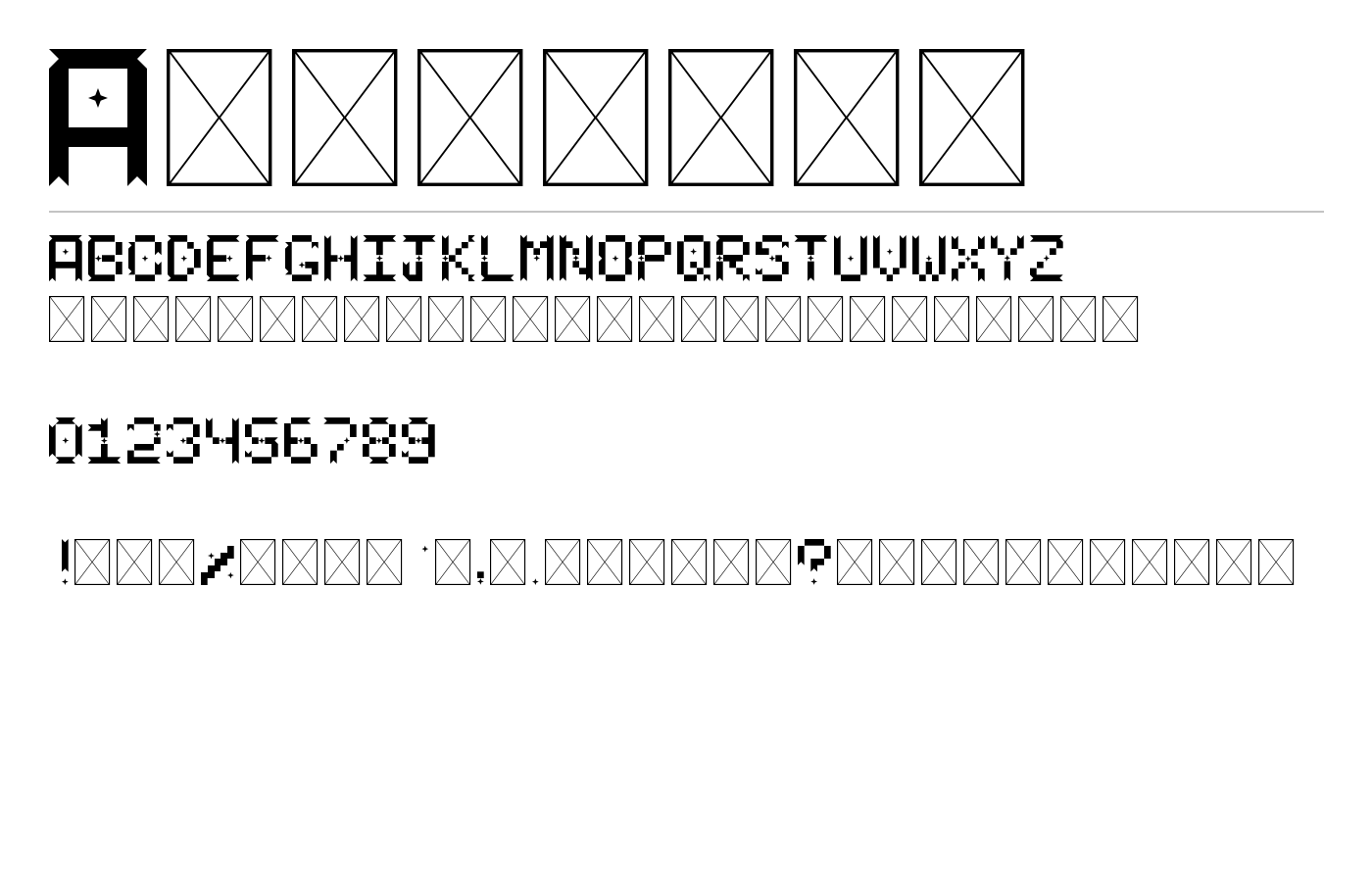
Andufont is a bold, geometric, and highly stylized sans serif font with a pixel-art aesthetic characterized by its blocky, angular shapes and unique decorative details on corners. This all-caps font features consistent stroke weight with no contrast, giving it a modern yet retro digital vibe, making it perfect for tech-inspired designs, video game titles, or eye-catching headlines where a futuristic and playful appearance is desired.
Andufont
About Andufont